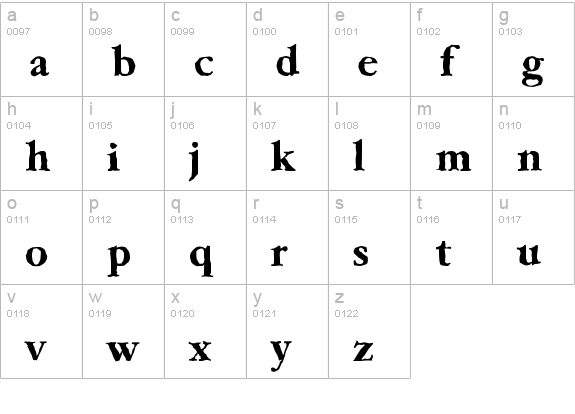
GarfeldAntique Bold is a strong, high-contrast variant in the GarfeldAntique typeface family \xE2\x80\x94 well suited to headlines, attention-grabbing titles, and strong calls-to-action.
GarfeldAntique Bold font is a timeless and elegant typeface that exudes a sense of sophistication and refinement. Its classic and ornate design makes it perfect for adding a touch of vintage charm to your projects. The bold weight of the font commands attention and is ideal for headlines, titles, and other important text that needs to stand out. What makes GarfeldAntique Bold even more appealing is that it is available for free download at FontsMarket.com. This means that you can easily access this stunning font and incorporate it into your designs without any cost involved. Whether you're working on a branding project, poster design, or any other creative endeavor, GarfeldAntique Bold is sure to elevate your work and give it a touch of old-world charm. Download it today and add a touch of timeless elegance to your designs.